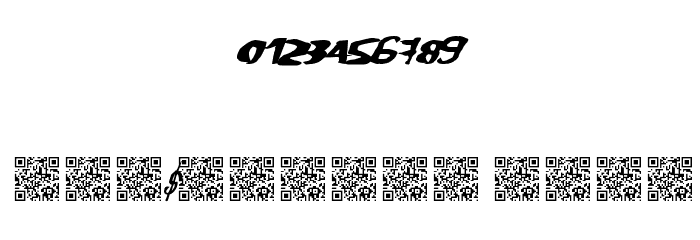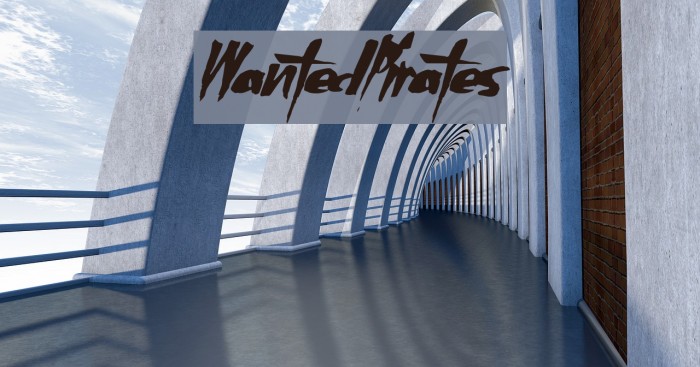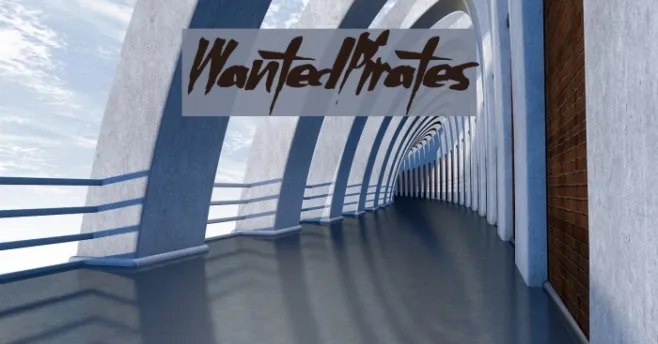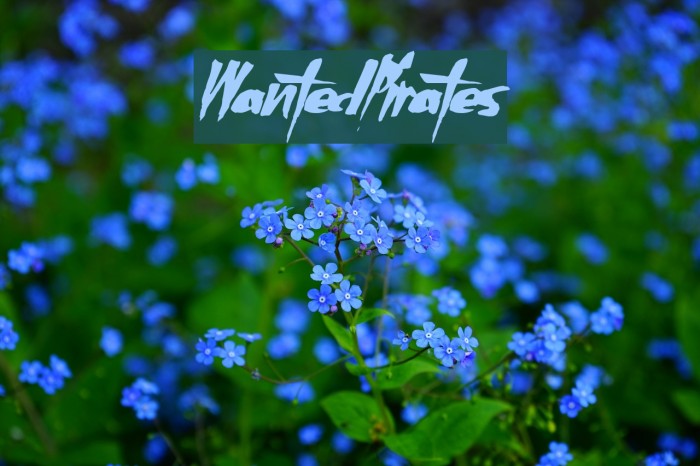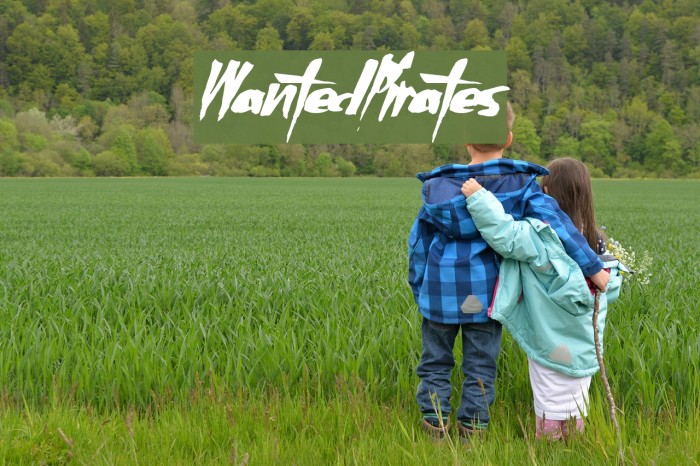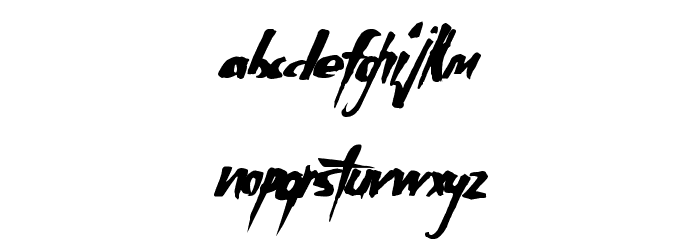
WantedPirates Font
This font exudes a rugged and adventurous spirit, reminiscent of pirate tales and treasure maps. The letters are bold and dynamic, with sharp, angular strokes that give a sense of movement and excitement. The uppercase letters are particularly striking, with exaggerated serifs and a slightly uneven baseline that adds to the hand-drawn, rebellious feel. The lowercase letters maintain this energetic style, with some letters featuring unique flourishes that enhance the overall aesthetic. Numbers and special characters are equally bold, ensuring consistency across all text elements. This font is perfect for projects that require a sense of adventure and daring.
A bold, adventurous font with sharp, dynamic strokes and a rebellious spirit.
• Proposed Projects: Ideal for pirate-themed events, adventure book covers, escape room branding, or any project needing a daring, adventurous feel.